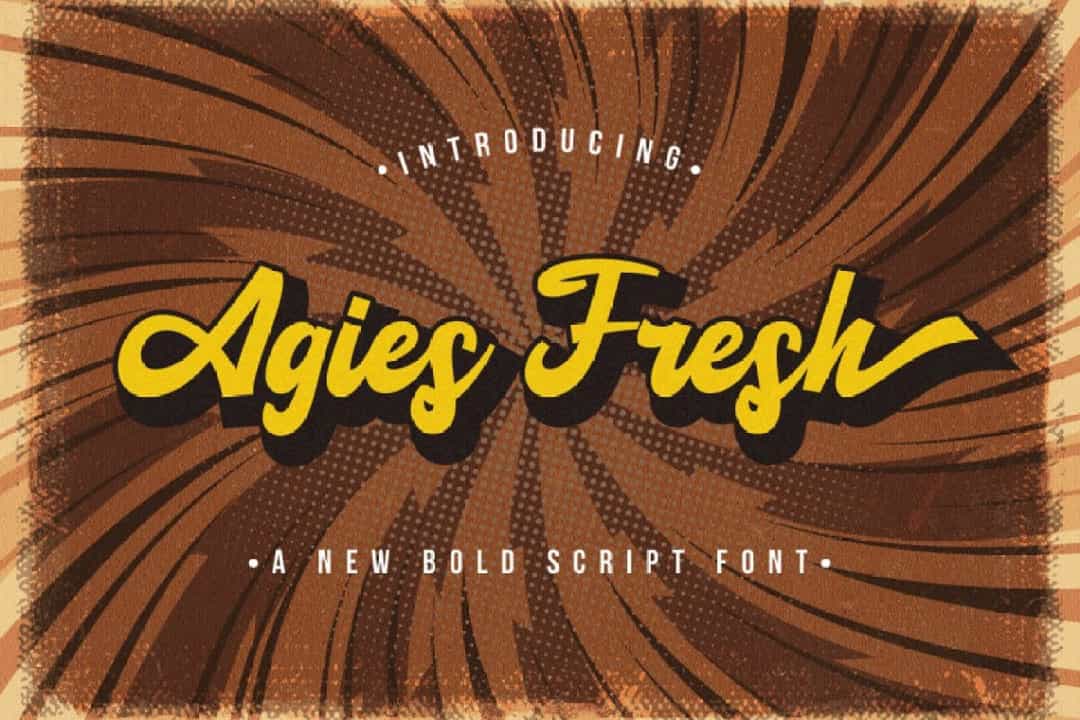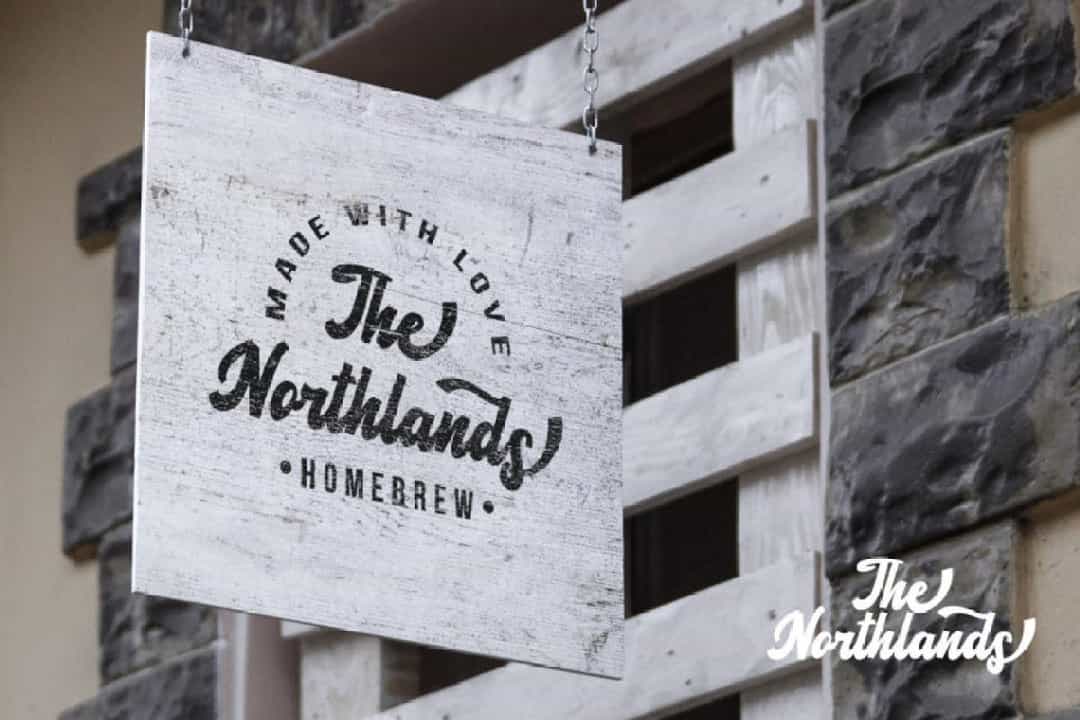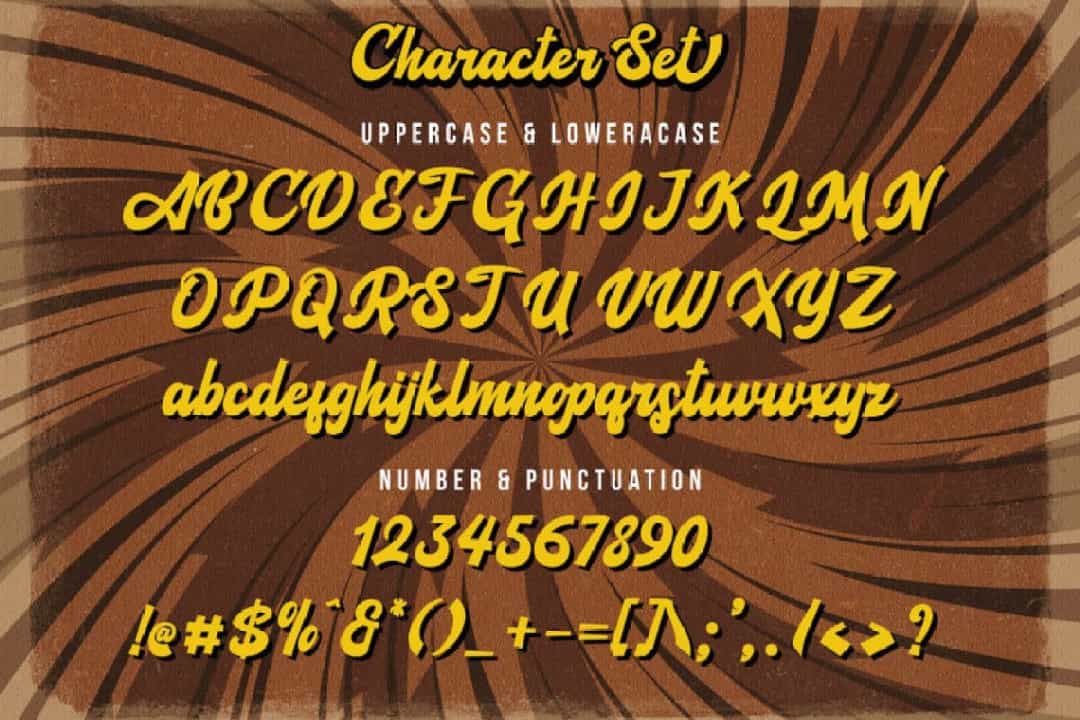
The Agies Fresh font is elegant and attractive but at the same time quite bold. Smoothed and flared at every corner, it has a retro and antique feel to it which is perfect for logos. You can use Agies Fresh for; Vintage Logos branding, modern Advertisement designs, Posters, Quotes, Book covers, Cover titles, Editorial designs, Webs/social media, Cards, T-Shirts designs, and Handwritten tasks etc.